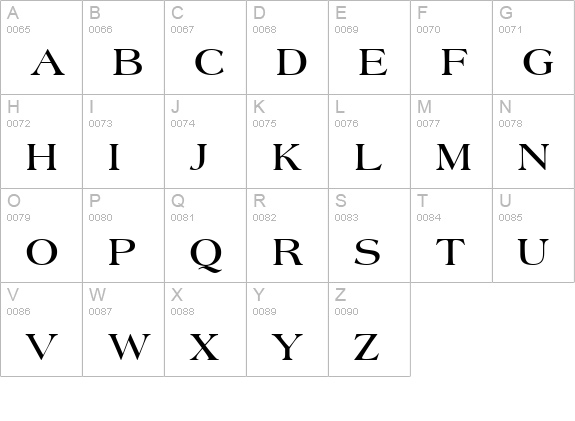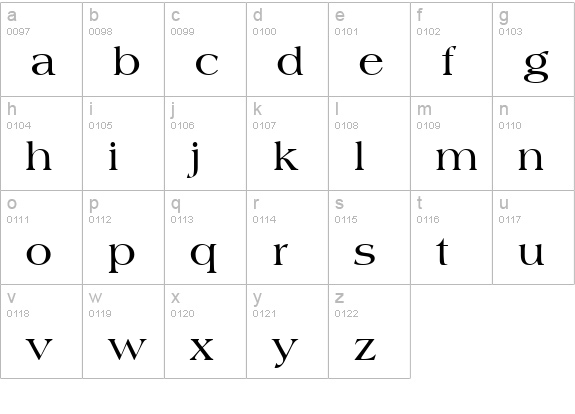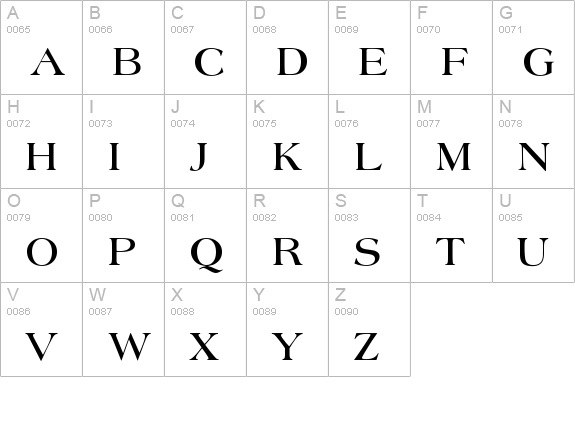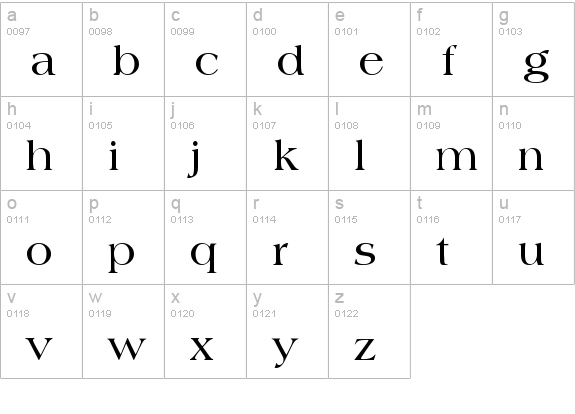
American Classic Bold Font Details
American Classic Bold is a strong, high-contrast variant in the American typeface family \xE2\x80\x94 well suited to headlines, attention-grabbing titles, and strong calls-to-action.
American Classic Bold font is a timeless and versatile typeface that exudes strength and boldness. With its clean lines and classic aesthetic, this font is perfect for a wide range of design projects, from branding to editorial design. Its bold and striking appearance makes it ideal for headlines, titles, and other attention-grabbing elements. The best part is that American Classic Bold font is available for free download at FontsMarket.com. This means you can easily access and use this high-quality font in your projects without any cost. Whether you're a designer looking to add a touch of American heritage to your work or a business owner in need of a strong and impactful font for your branding, American Classic Bold font is the perfect choice. Download it now and elevate your designs with this classic and timeless typeface.